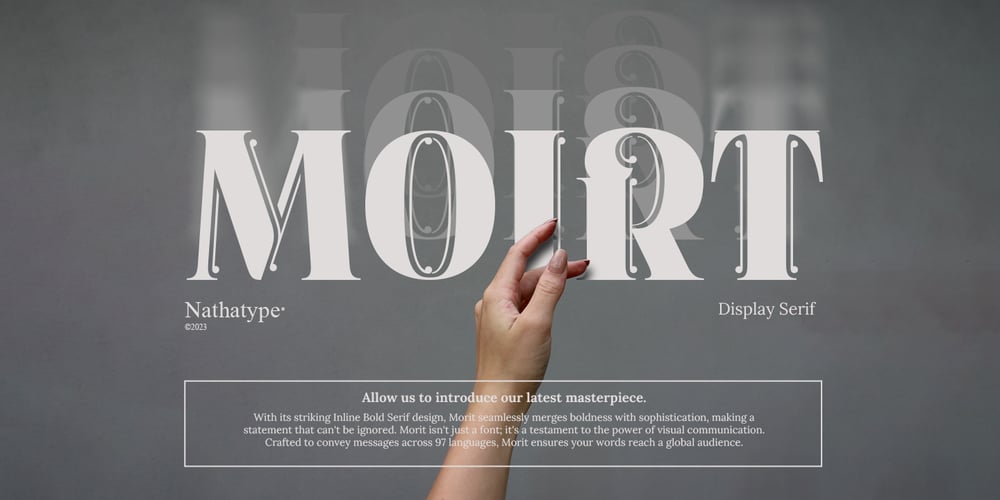
Moirt Font Family was designed by Donis Miftahudin and published by Nathatype. Moirt contains 1 styles and family package options. Prepare to make a bold statement with Moirt, an uppercase serif display font that commands attention. Each uppercase letter stands tall and robust, making a commanding presence on any canvas. The spacious layout enhances legibility and gives the font a contemporary, open feel. Delicate lines run parallel to the edges of the letters, adding a unique and captivating visual element. Moirt fits in headlines, logos, branding materials, print media, editorial layouts, and many more.